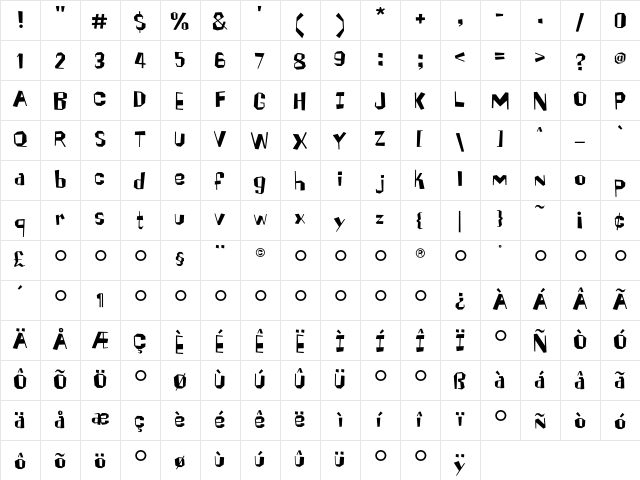
Brickhouse Regular
Design Context for Brickhouse Typeface
Brickhouse is a composed and adaptable typeface that performs quietly and consistently across a wide range of design contexts.
Pro Tip: Use Brickhouse in both headline and body roles to test its range before committing to a single application.